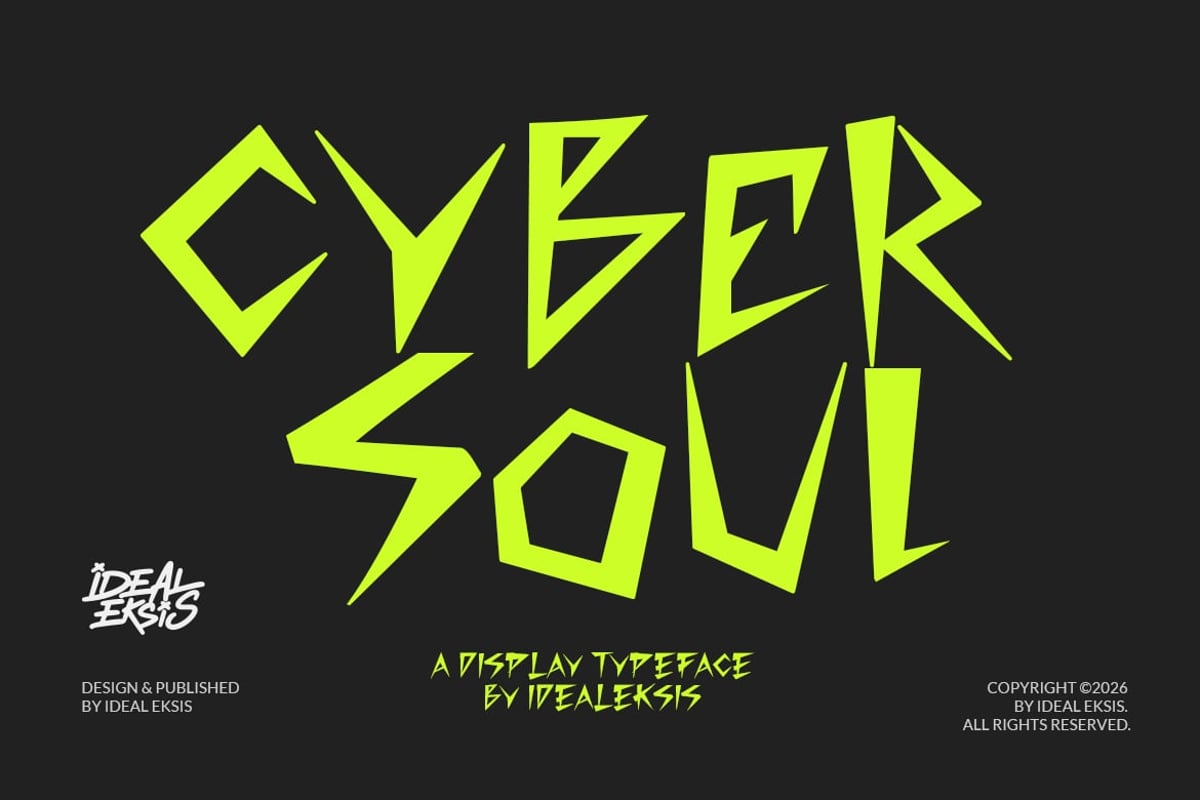
Cyber Soul - Futuristic Display Font
Unleash the future with this aggressive cyberpunk typeface featuring razor-sharp, jagged letterforms perfect for cutting-edge designs.
This futuristic display font combines sharp, needle-like terminals with irregular stroke weights to create an intense, tech-inspired aesthetic. The aggressive design language makes it ideal for sci-fi projects, gaming interfaces, and modern digital branding that demands attention.